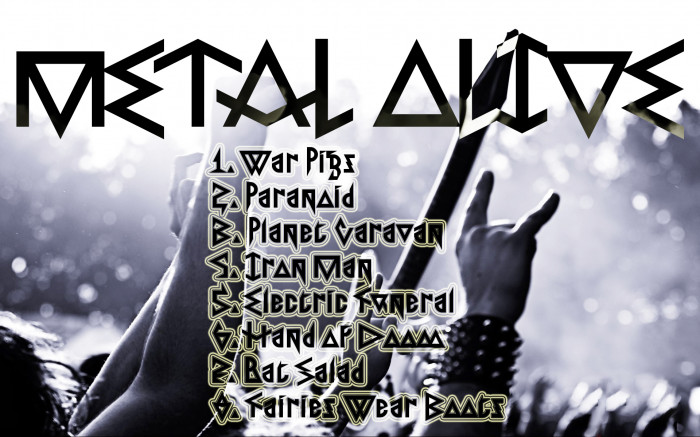
•  Voron means Raven in Russian. Alternative A H K M in russian А Н К М.
A lot of kerning.
I hear the guitars.
Good work, really has that heavy metal vibe.
It's cursed. I love it.